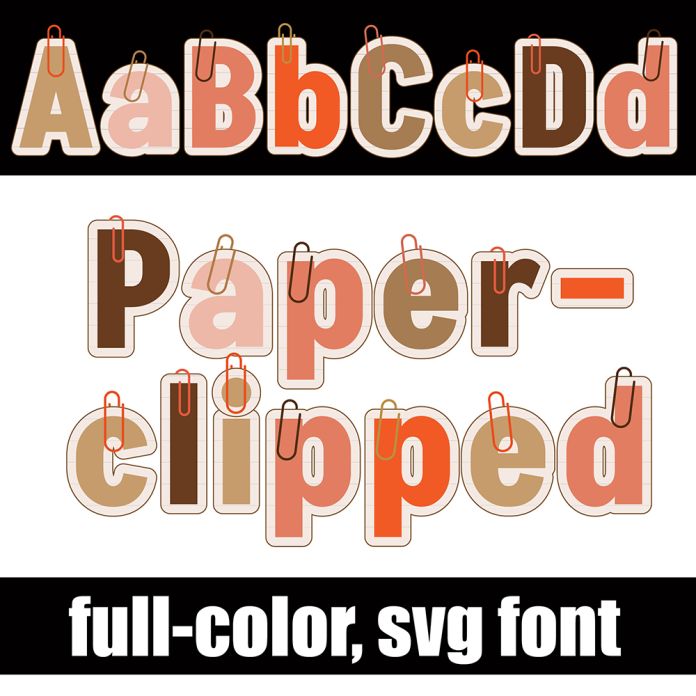
Paperclipped Pumpkin Color Font
This full-color font features little paper lettering with a pumpkin-spice color palette and paperclips throughout. There is an alt case w/ additional colors you can access through your system or Silhouette's glyph map. This font works best for titles, displays, posters and more. Please note color fonts will show as black in non compatible programs. This font type is compatible with Silhouette Studio.